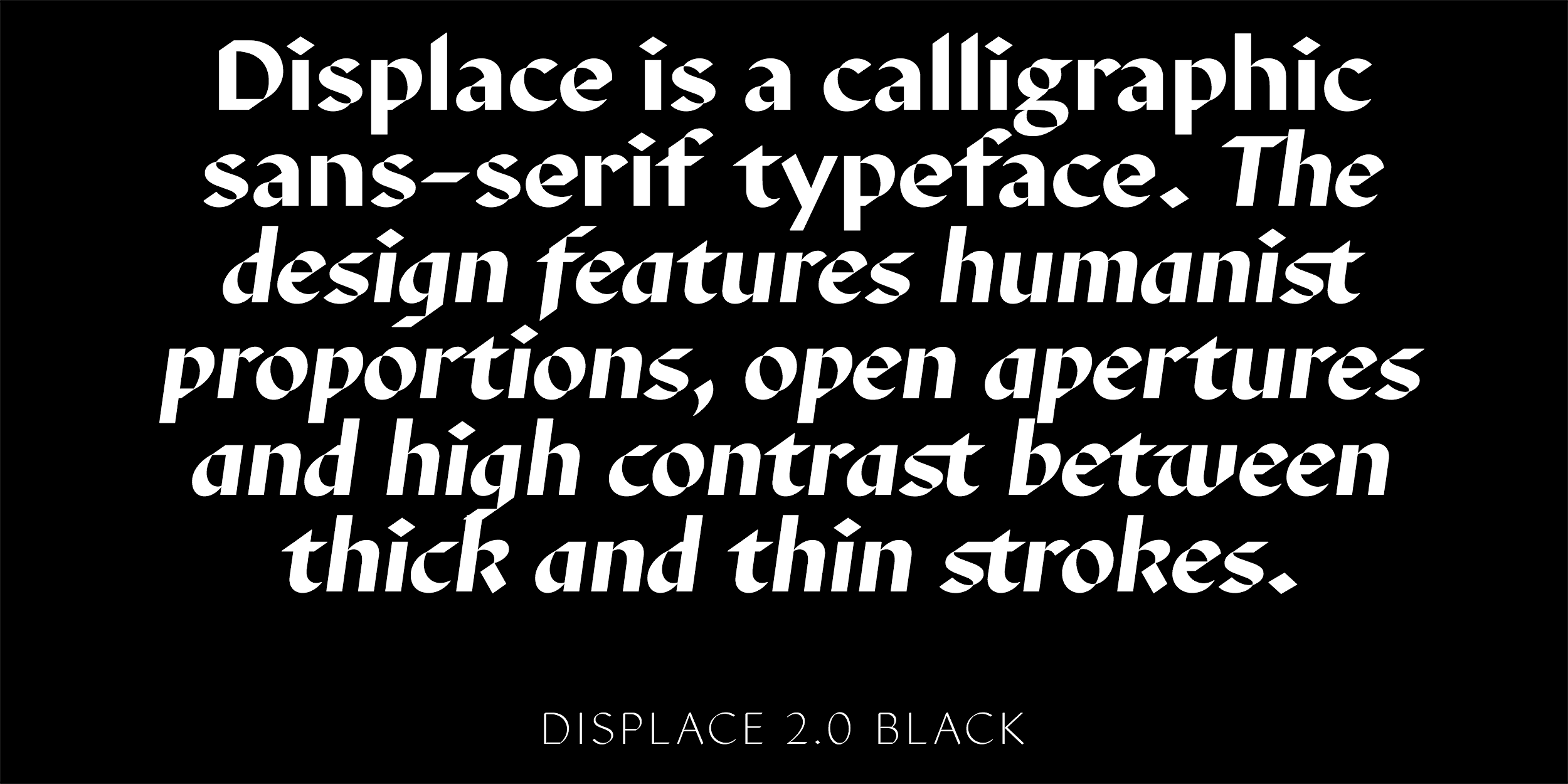
Displace 2.0 is a display font. It belongs to several different type genres, but first and foremost, it is digital calligraphy. Based on the classical broad-nib letterforms, Displace 2.0 is daring and distinctive, with its very own temper and tone of voice. Displace 2.0 has five weights, roman and italic styles.
Displace Serif is an even more display variation of Displace 2.0. The serifs change according to the weight and contrast — in the lighter styles they are slight and delicate, while much bolder and more tangible in the heavier ones. Don’t be surprised not to find serifs everywhere you would expect — the letterforms are still based on broad-nib calligraphy. Displace Serif has five weights, roman styles only.